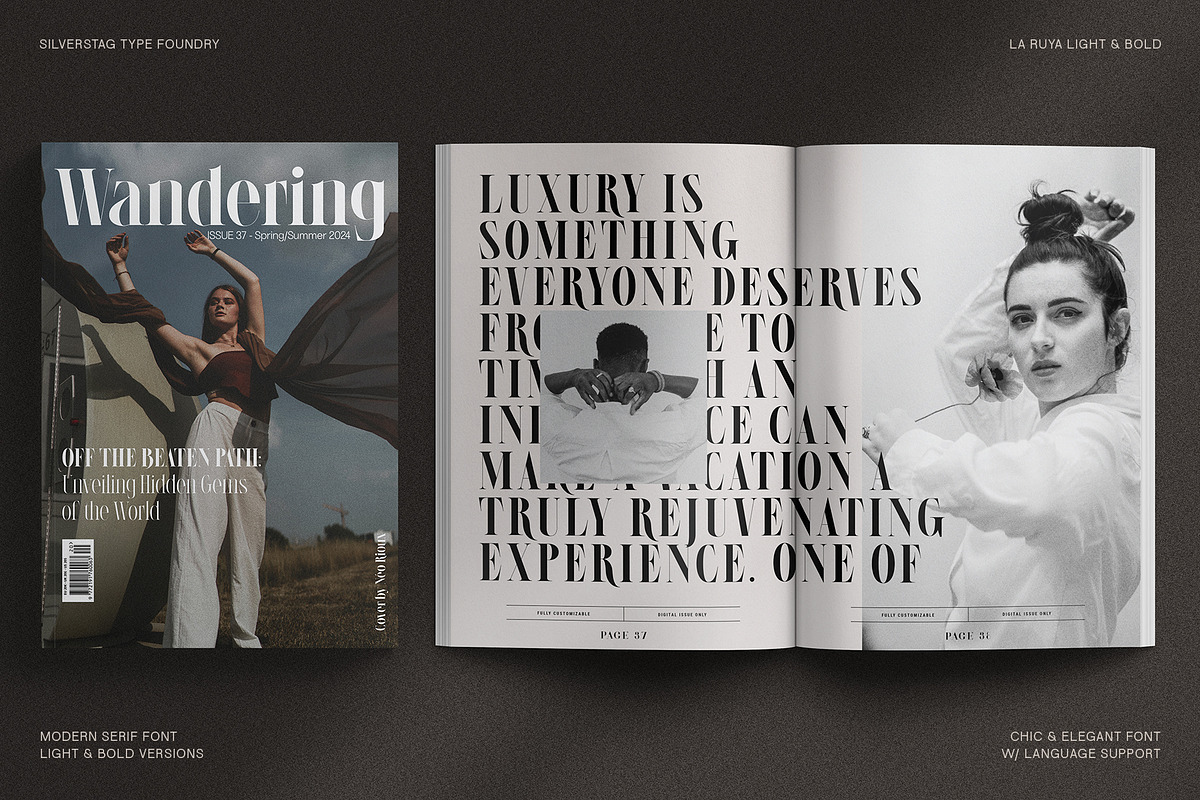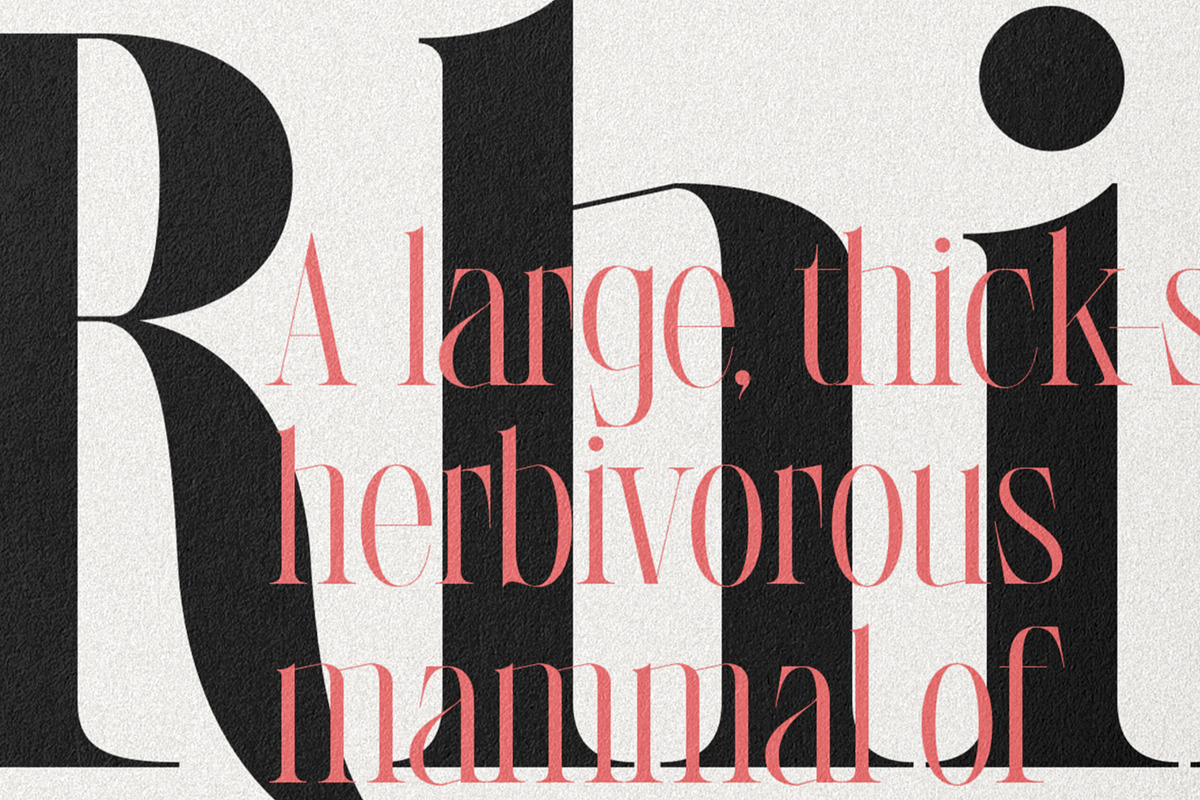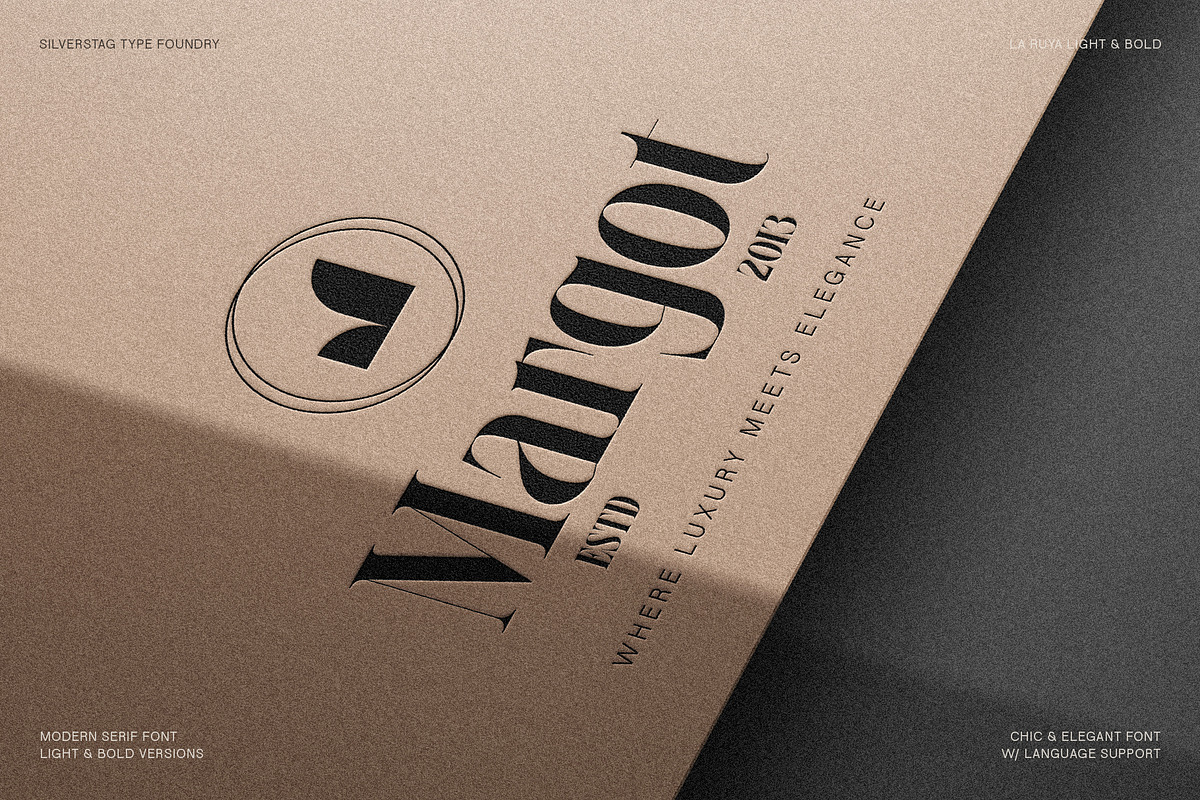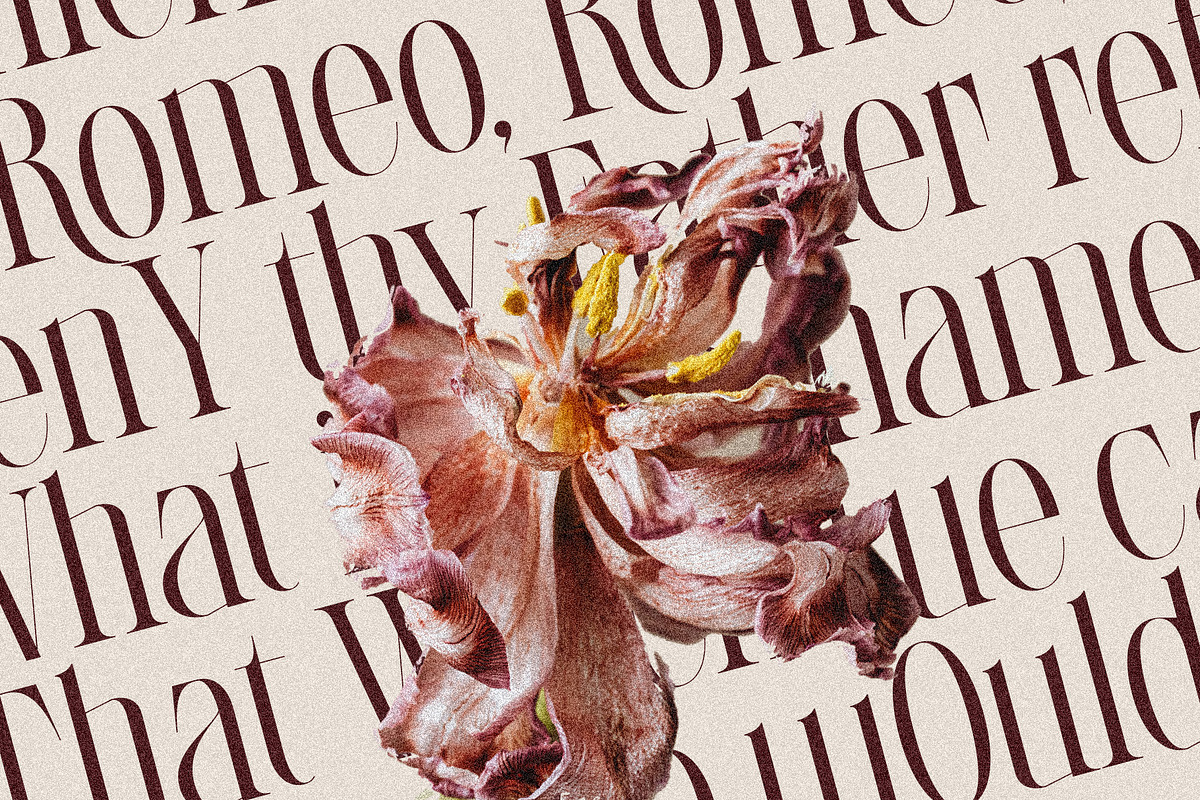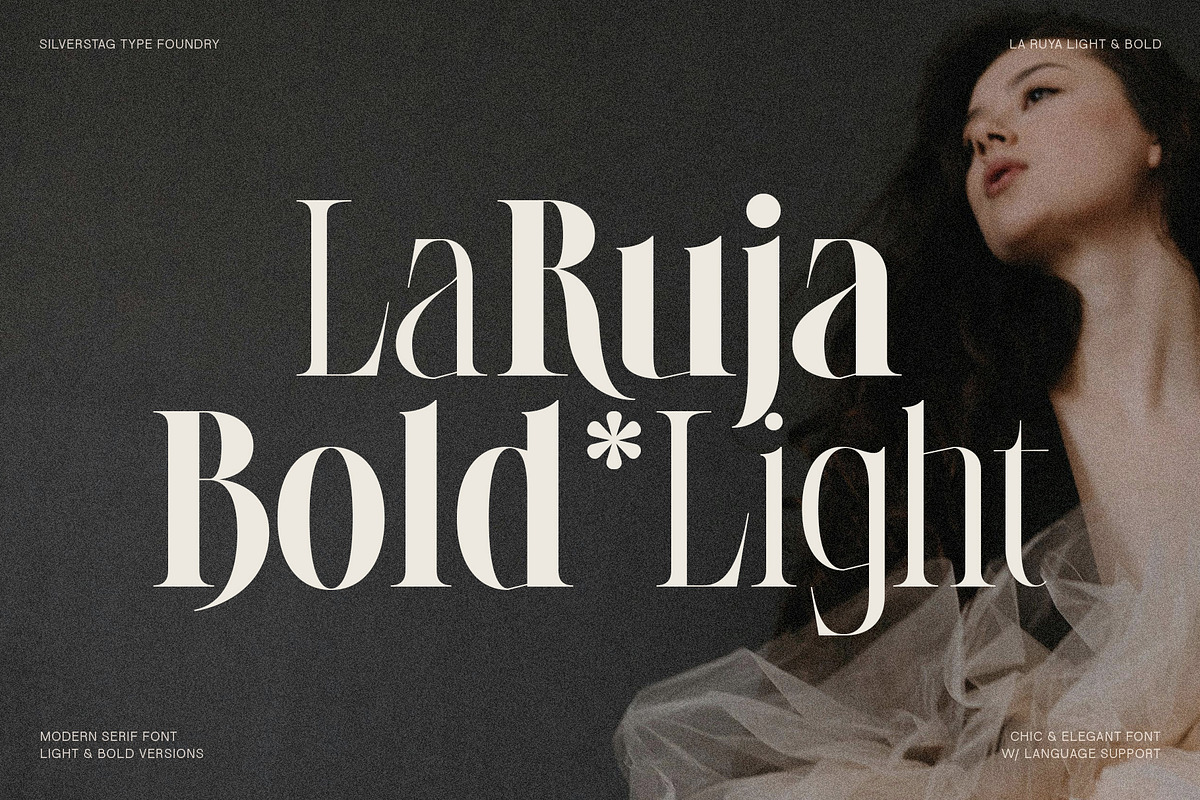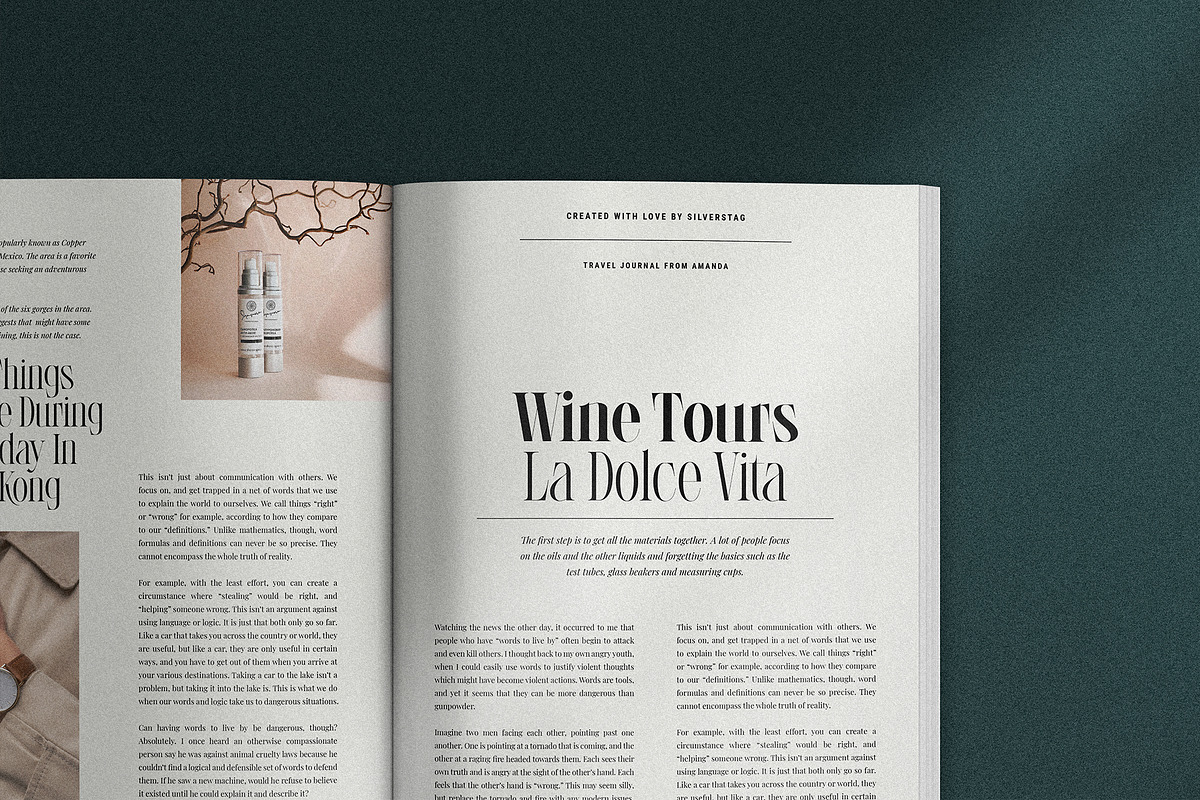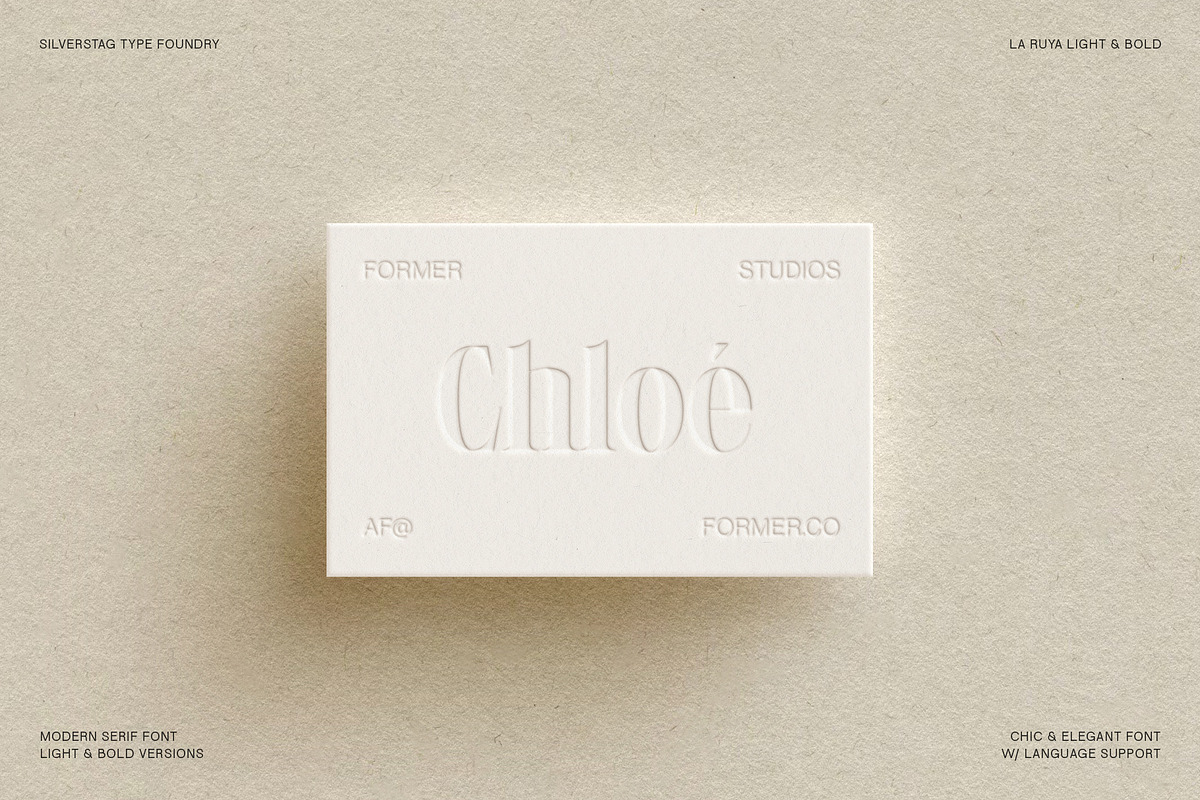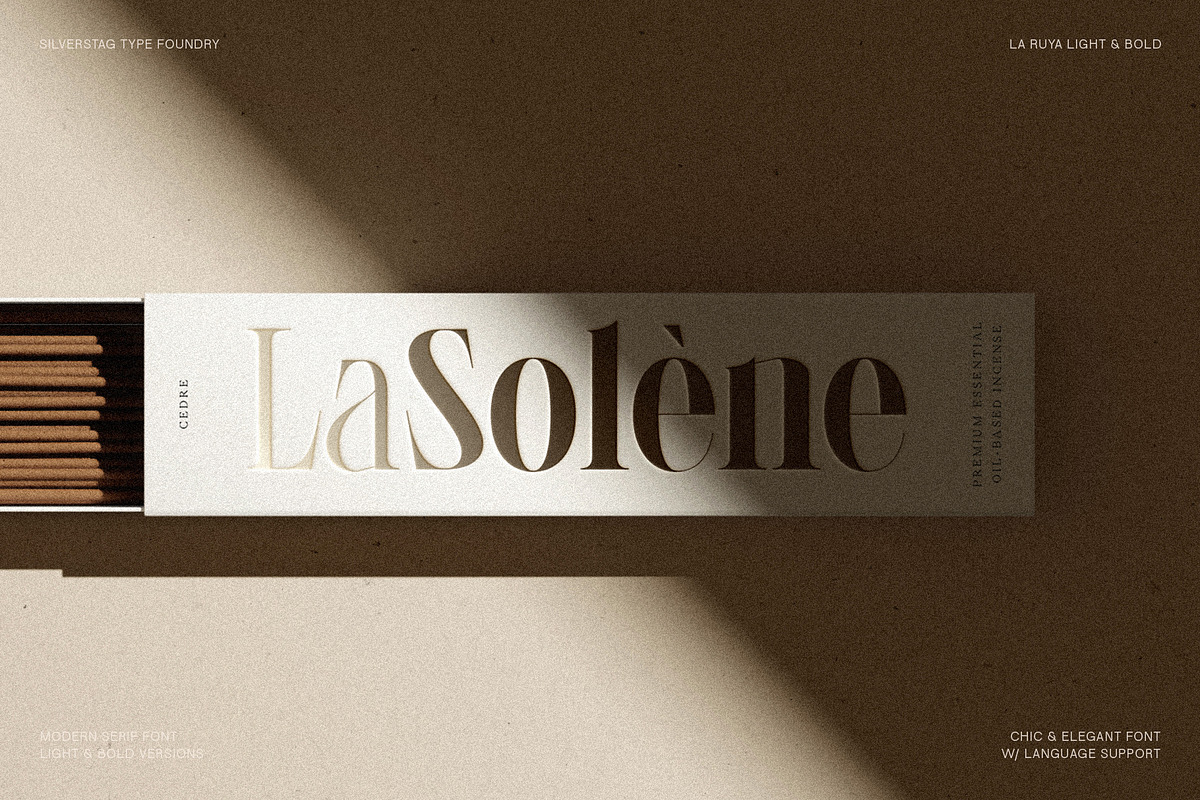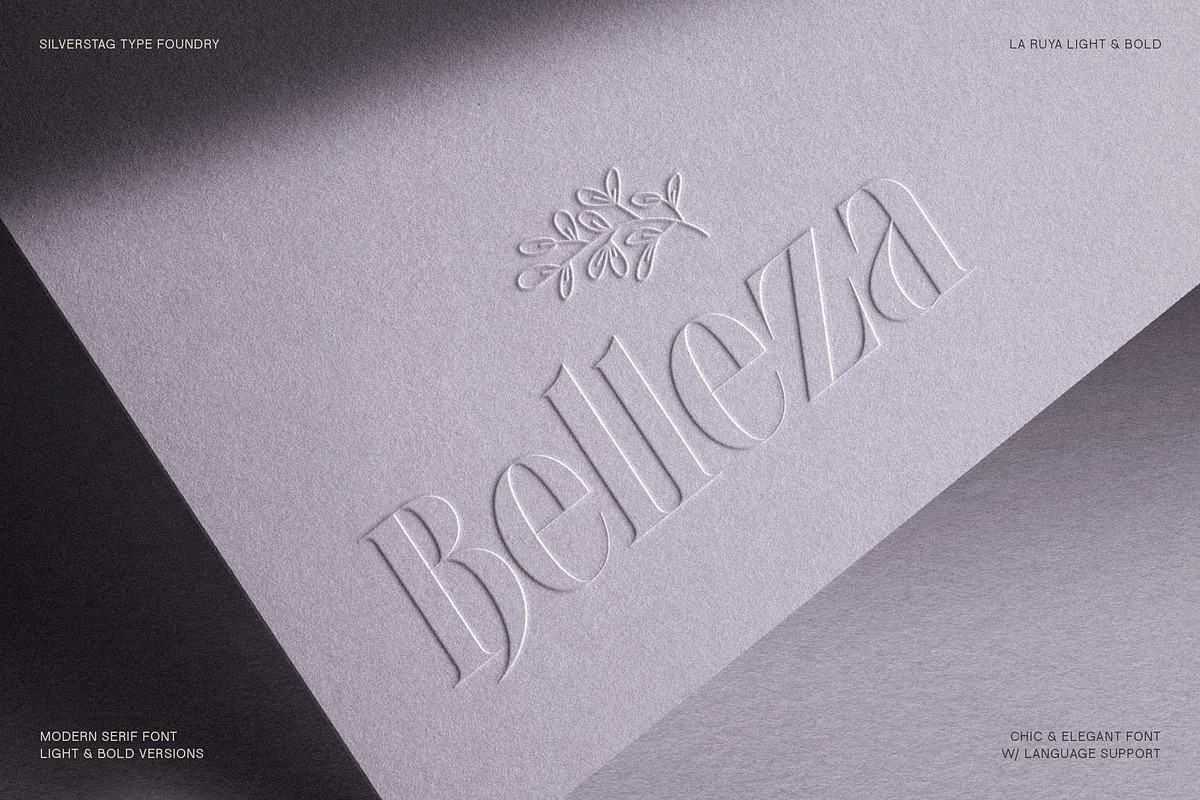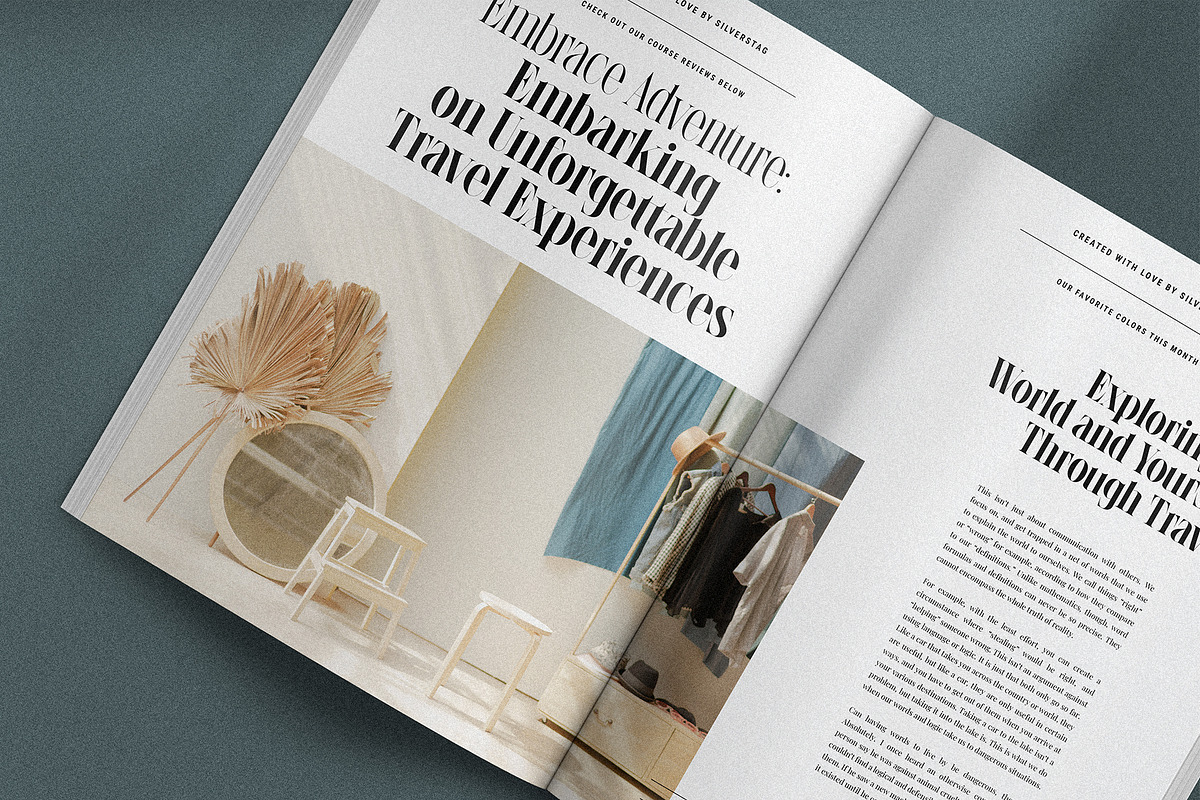
LaRuja - Light & Bold Serif Duo
LaRuja: The Essential Light & Bold Duo
LaRuja isn't just a typeface – it's a statement. This isn't the same old delicate serif; its high-contrast strokes and sharp angles demand attention. Perfect for designs that refuse to blend into the background.
Make Your Headlines Sing (or Shout!)
The bold weight is your secret weapon for headlines that punch through the visual clutter. Use it for powerful statements and unforgettable impressions.
Airy Elegance, Elevated Style
The light weight brings a refined touch to your designs. Its delicate serifs and graceful curves add sophistication without sacrificing legibility. Ideal for body text, captions, or anywhere you need a whisper of modern elegance.
Unleash Your Design Potential
This essential duo unlocks the full power of LaRuja, giving you unstoppable versatility. Tackle any project with the dynamic range of light and bold, crafting everything from impactful headlines to effortlessly readable paragraphs.